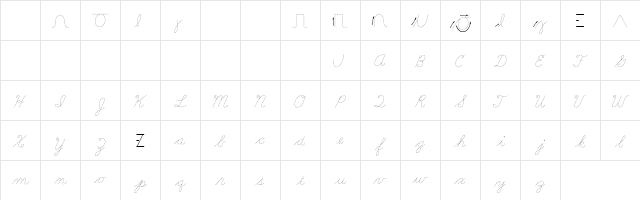
Complete Learning Curve Dashed BV Regular glyph index. Displaying only characters natively supported by Learning Curve Dashed BV Regular font.
Learning Curve Dashed BV is a composed and adaptable typeface that performs quietly and consistently across a wide range of design contexts.